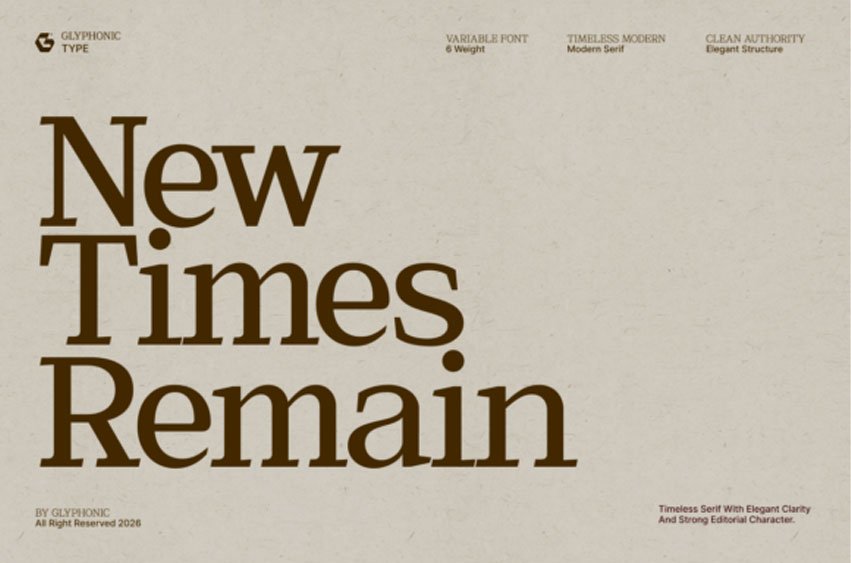
New Times Remain Font
New Times Remain Font is a commanding display serif that captures an “authoritative-and-archival” soul. This font features sturdy, high-contrast letterforms uniquely characterized by rhythmic, sharp serifs and a sophisticated structural weight that bridges the gap between classic newsprint authority and modern editorial branding.
With its prestigious personality and elegant clarity, New Times Remain is the premier choice for independent law firm identities, boutique architecture logos, premium editorial layouts, and high-impact “stately-and-strong” social media headers.